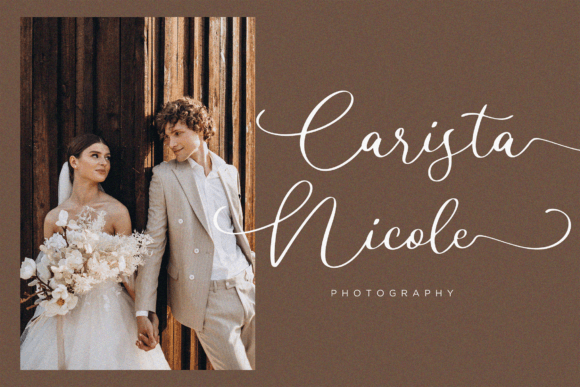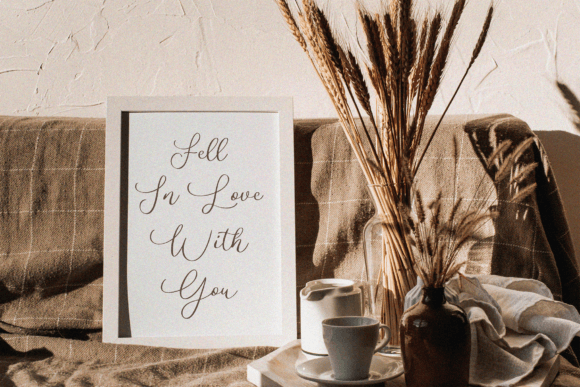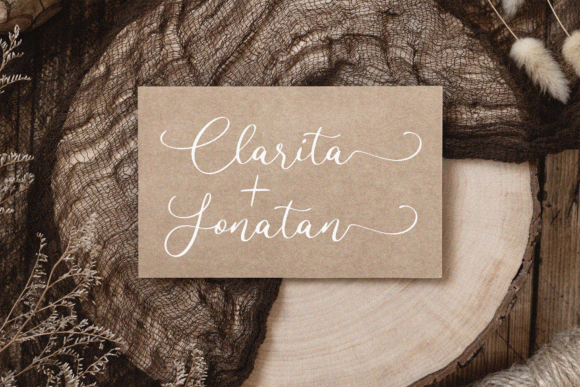
Cherylitta Font
Cherylitta is a modern and long-tail script font. Cherylitta is perfect for product packaging, branding projects, magazines, social media, weddings, or to express words above the background.This font is PUA encoded which means you can access all of the amazing glyphs and ligatures with ease!